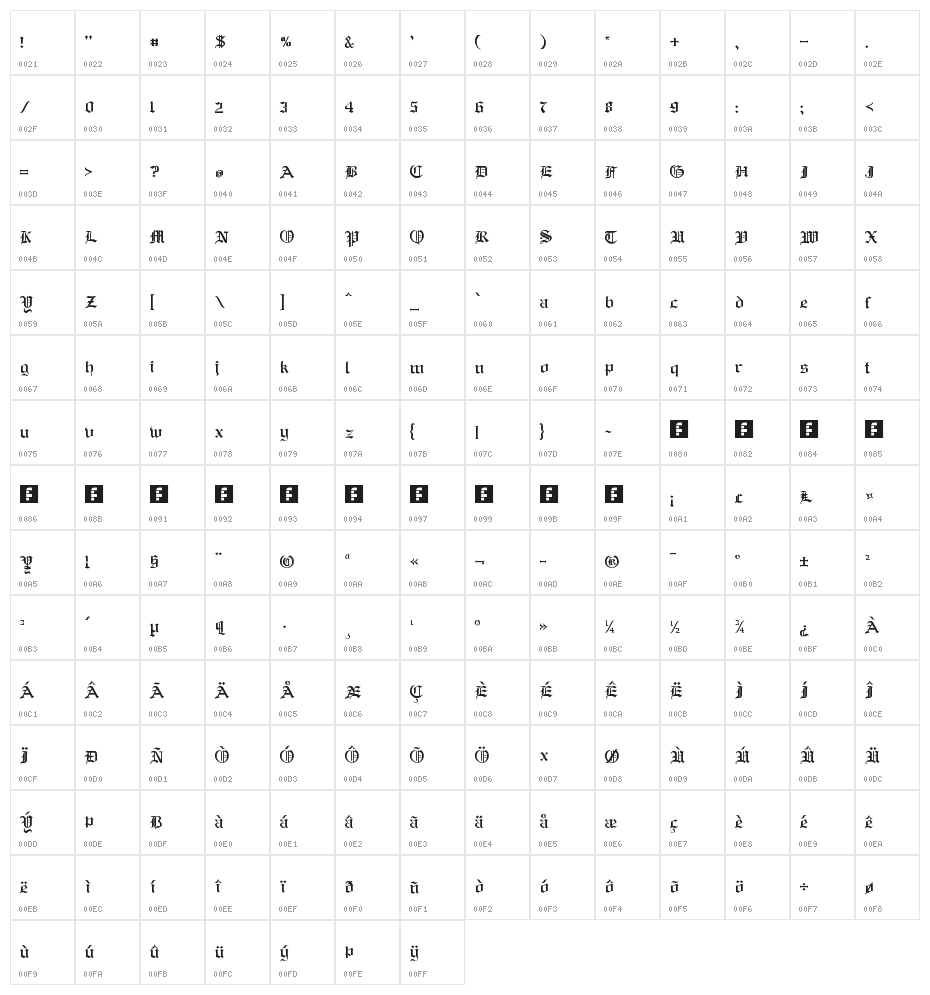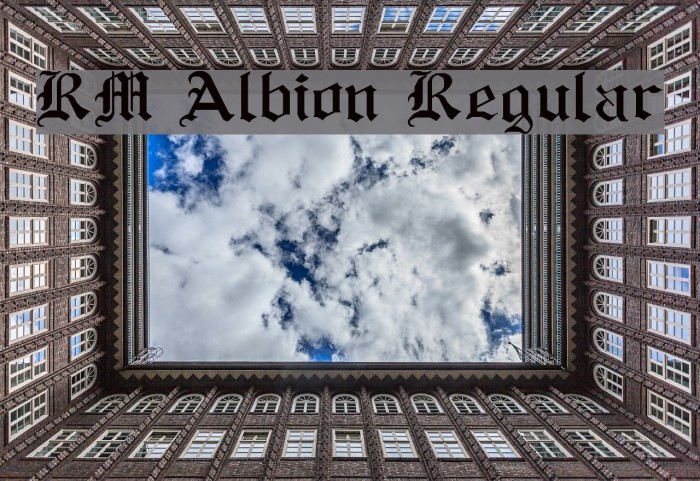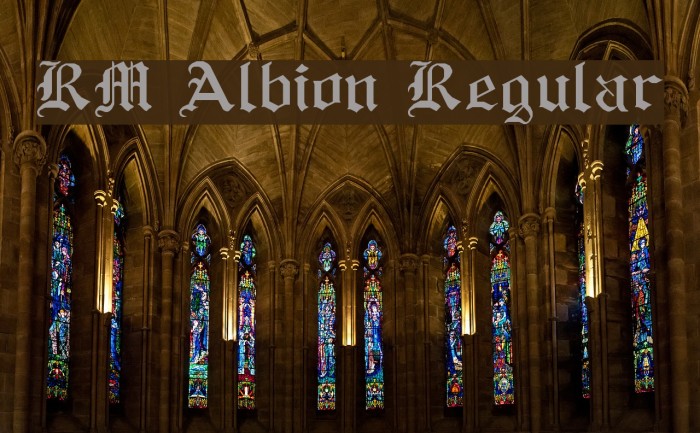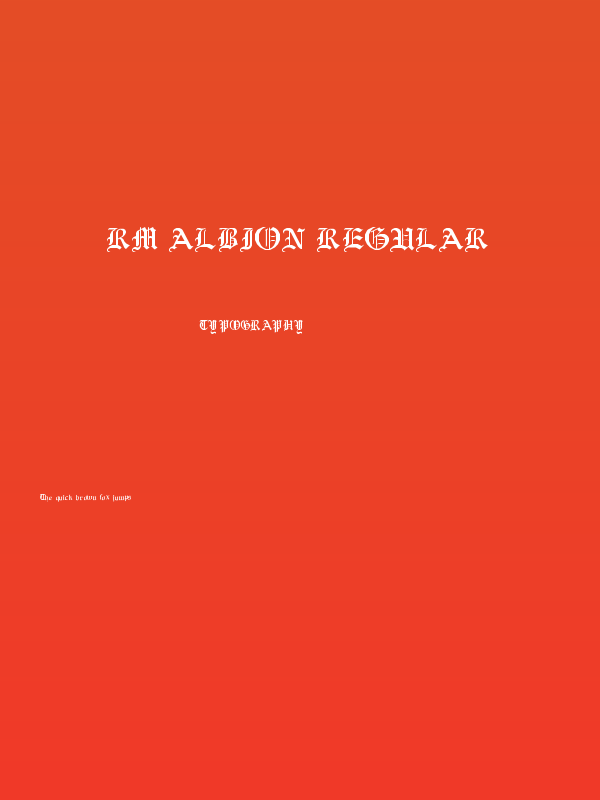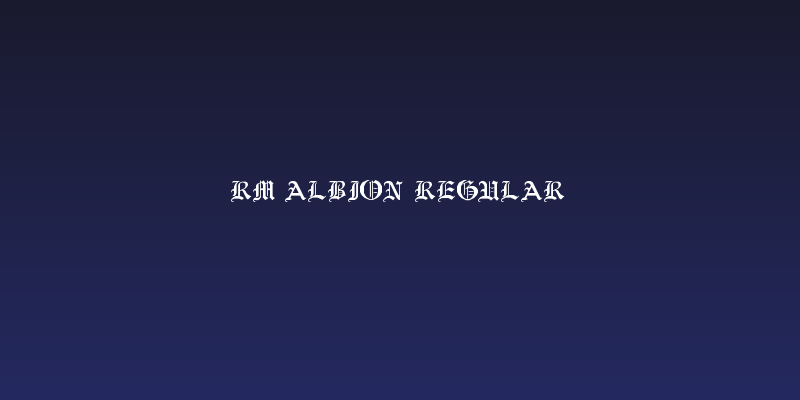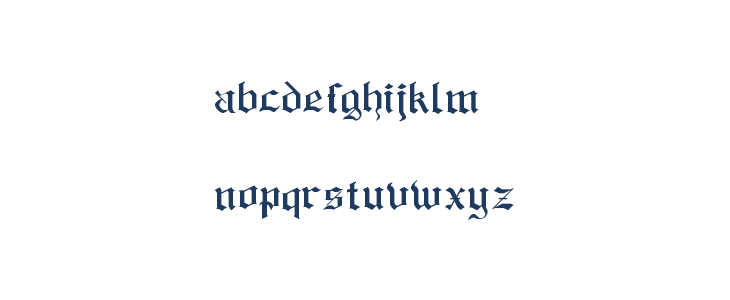
RM Albion Regular Font
RM Albion Regular Description
This font exudes a classic and historical feel, reminiscent of medieval manuscripts and traditional Gothic script. The characters are ornate, with intricate detailing and sharp, angular lines that give it a distinct and authoritative presence. The uppercase letters are particularly elaborate, featuring decorative serifs and flourishes that enhance their majestic appearance. The lowercase letters maintain the same stylistic elements but are slightly more subdued, providing a balanced contrast. Numbers and special characters are consistent with the overall theme, ensuring a cohesive look across all text. This font is ideal for projects that require a touch of elegance and historical depth.
| Use Case | Headlines, Logos, Decorative text |
| Proposed Projects | Ideal for historical documents, book covers, event invitations, and branding that requires a traditional or medieval aesthetic. |